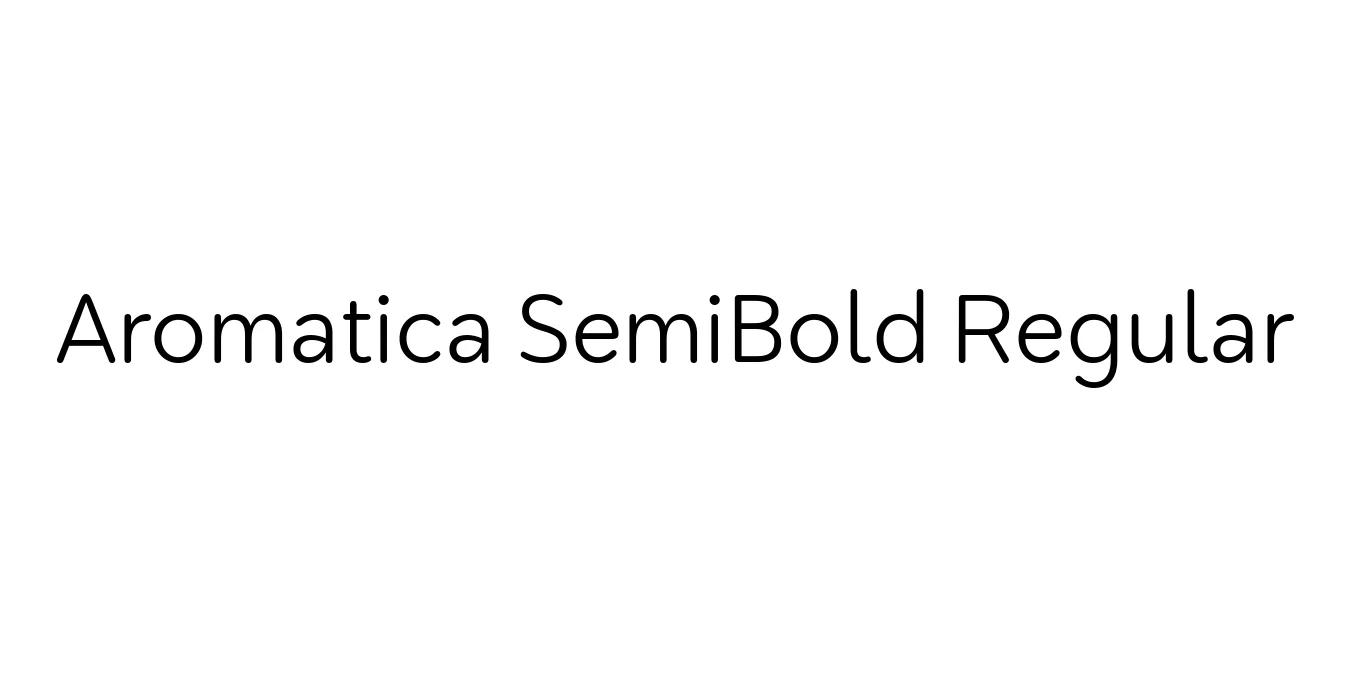
Aromatica SemiBold Regular
Designed by Sofia Mohr
| Category | Rounded Sans Serif |
| Designer | Sofia Mohr |
| Similar Fonts | VAG Rounded, Comfortaa, Nunito, Quicksand |
Aromatica SemiBold Regular is a distinctive rounded sans-serif typeface designed by the renowned typographer Sofia Mohr. The font was inspired by the organic shapes and friendly aesthetics found in the culinary and aromatic industries. It features smooth, softened terminals and a balanced geometric structure that creates a warm, approachable, and highly contemporary personality for any design project.
The SemiBold weight offers a robust visual presence without losing the font's characteristic softness. Its generous x-height and clear apertures ensure excellent legibility across both print and digital mediums. Whether used for high-end packaging or modern web interfaces, Aromatica SemiBold delivers a sense of freshness and professional craftsmanship that is synonymous with Latinotype's high standards.
Aromatica SemiBold Regular Best Uses
Ideal for organic food, beverage labels, and cosmetic products.
Perfect for logos that require a friendly and approachable corporate identity.
Great for headers, call-to-action buttons, and mobile app interfaces.
Effective for social media graphics and lifestyle marketing campaigns.